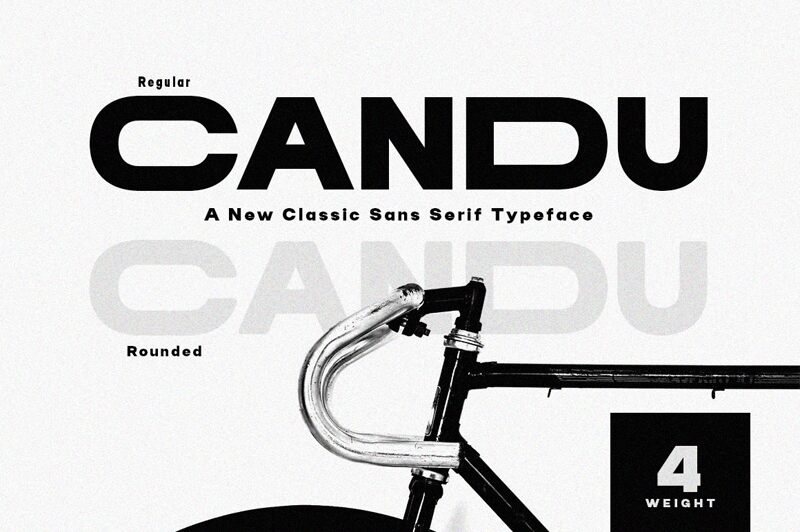
Candu, crafted by Dora Typefoundry, stands out with its bold personality and sans serif simplicity. Its sturdy letters convey confidence and stability, making it a font that's not just easy on the eyes but also assertive in its presence. The effortless elegance of Candu is marked by clean lines and modern proportions-inviting and versatile for a myriad of applications.
This typeface is particularly well-suited for impactful headlines, attention-grabbing advertising, or any design project where clarity is key. Its robust character also makes it an excellent choice for branding efforts that aim to make a strong statement without sacrificing readability. Whether it's on print media or digital platforms, Candu's tasteful boldness ensures that your message stands out with style.